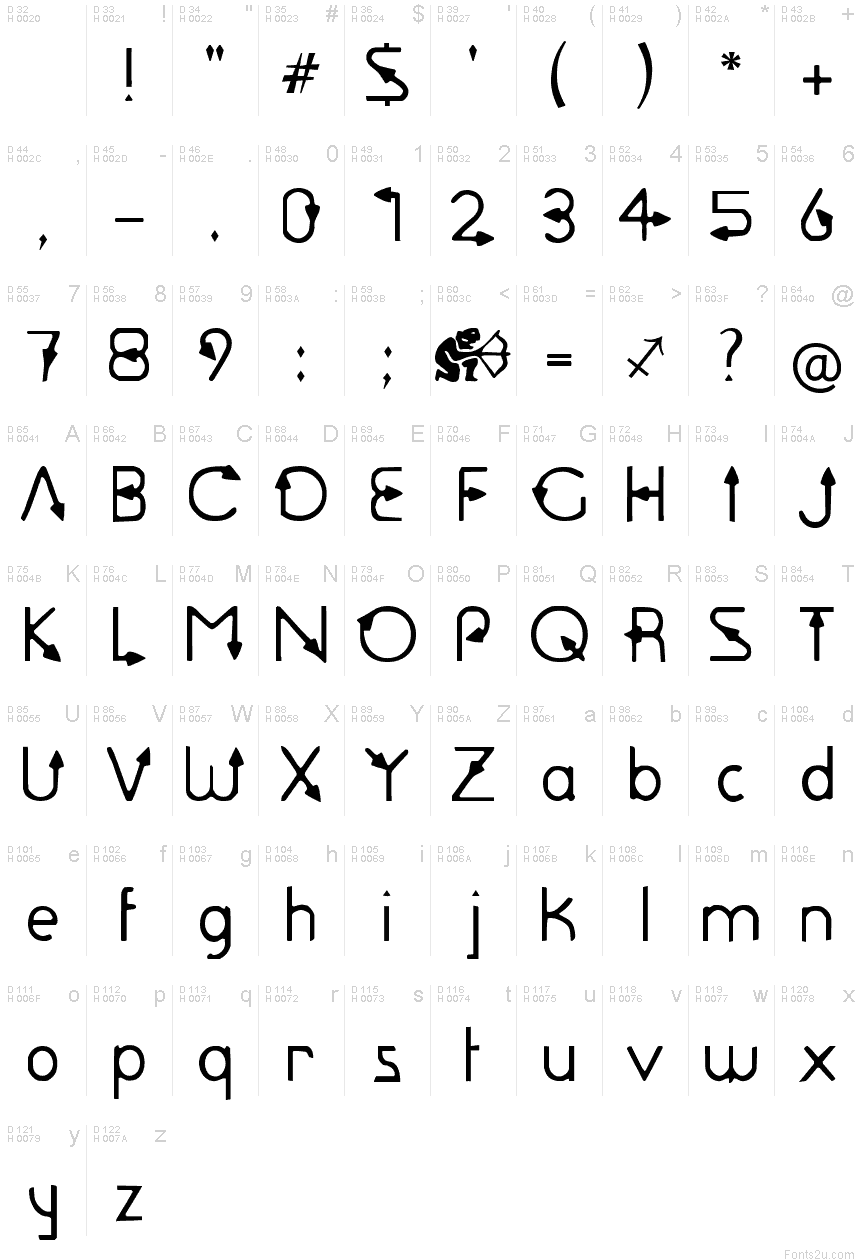
Sagittarius In Different Fonts
Sagittarius is a arrows font that was created by cybapee creations in 1999.it was added to fontspace on jan 13, 2007. So finding your zodiac signs and figure it out its meaning can help understand your business, friendships, dating etc. Download free font zdyk sagittarius.
Astrology of different traditions may use different ways of calculating. This style of hand display makes it perfect for use in all your design projects whether it's logo, label, packaging design, blog title, poster, wedding designs, social media posts, instagram design, etc. The font collection section is the place where you can browse, filter, custom preview and download.
Sagitarius is a unique, elegant and modern handwriting font. So finding your zodiac signs and figure it out its meaning can help understand your business, friendships, dating etc. That looks like a signature, this font is intentionally made with unique and alternating ligatures.
Sagittarius is a arrows font that was created by cybapee creations in 1999.it was added to fontspace on jan 13, 2007. See preview sagittarius font, write comments, or download sagittarius font for free. Submit your funny nicknames and cool gamertags and copy the best from the list.